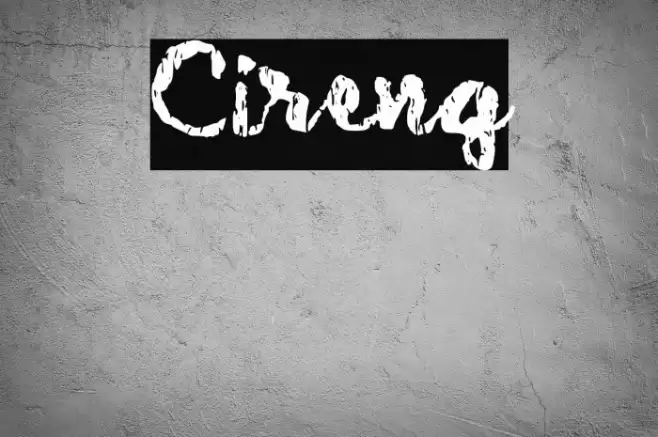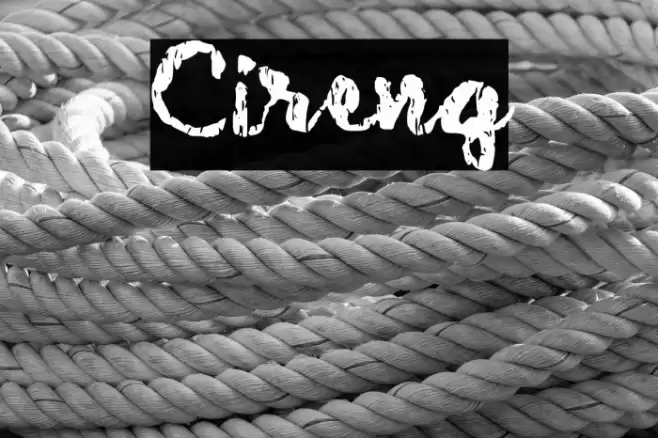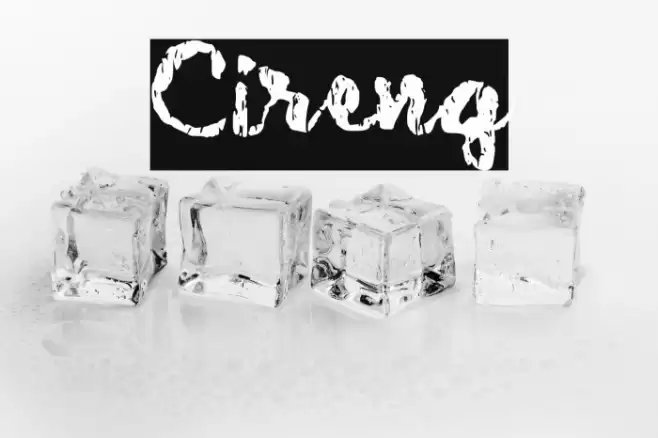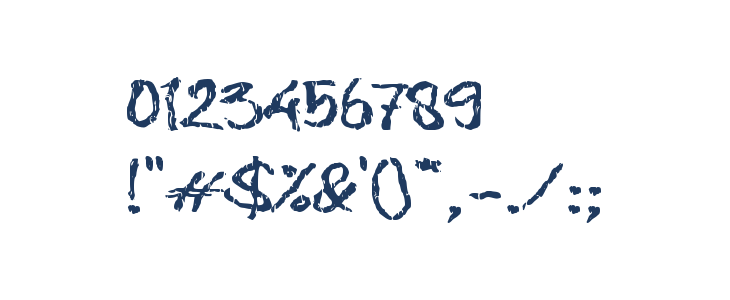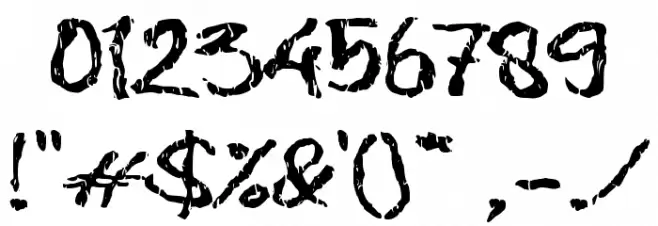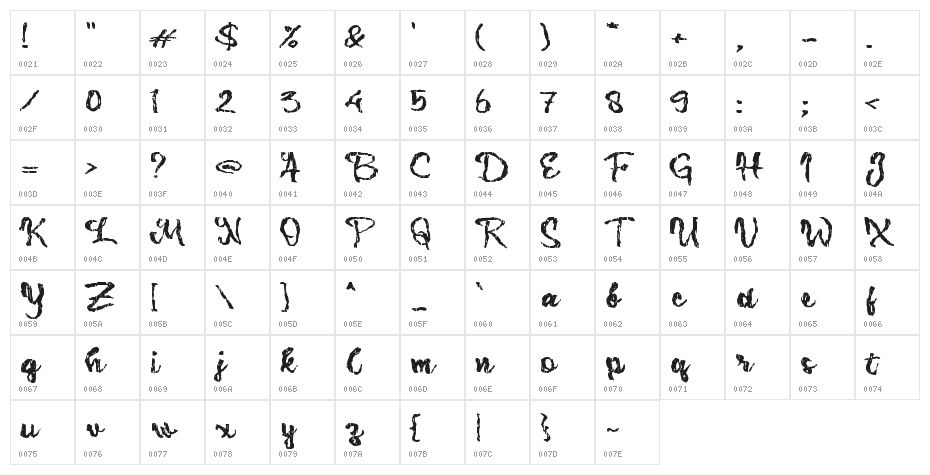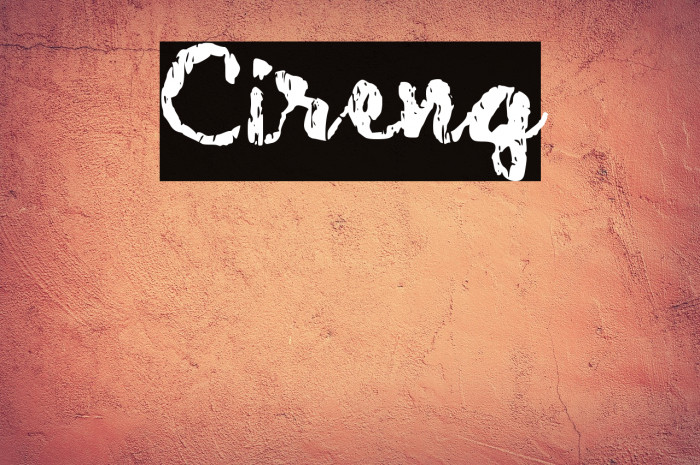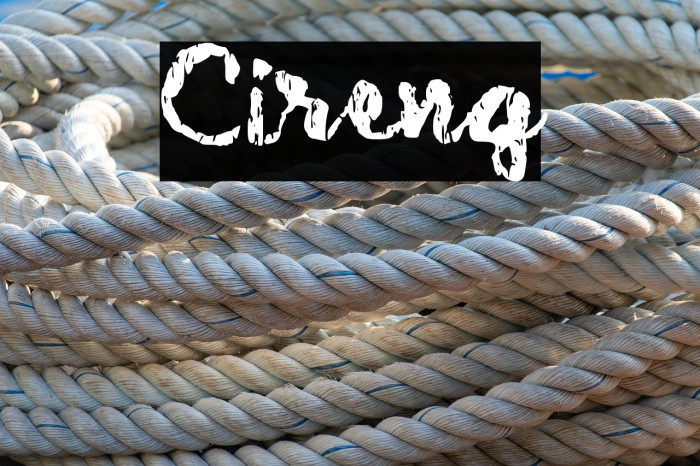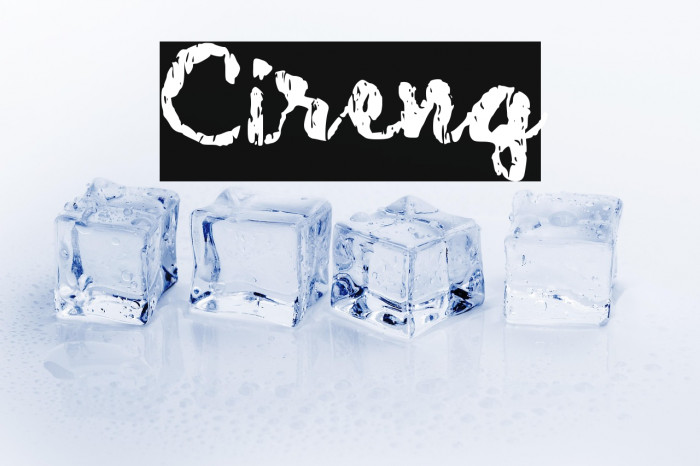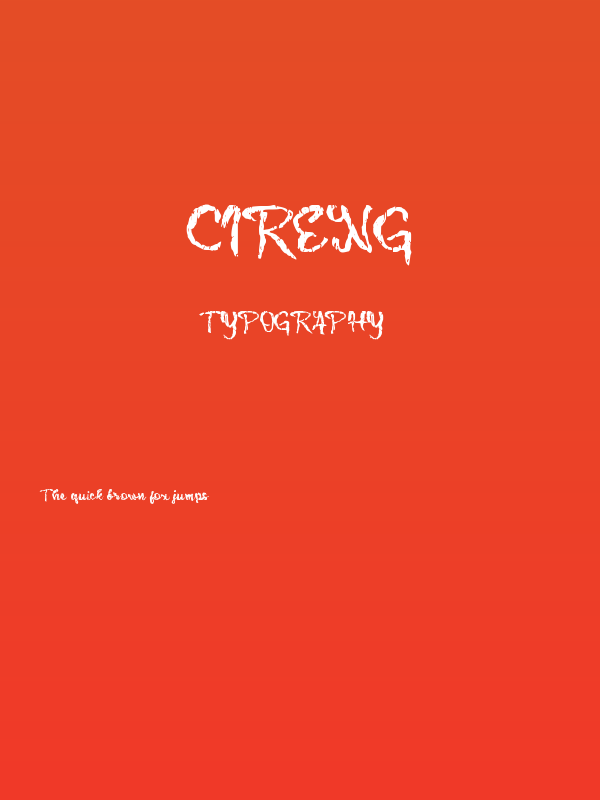
This font features a bold and expressive style with a handwritten appearance. The characters are irregular and have a textured, brush-like effect that gives them a dynamic and artistic look. The uppercase and lowercase letters maintain a consistent flow, while the numbers and special characters complement the overall aesthetic. The font's unique style makes it stand out, with each character appearing as if it has been painted with a brush, adding a sense of movement and energy. The texture within the strokes adds depth and interest, making it suitable for creative and eye-catching designs.
A bold, textured, and expressive handwritten font with a brush-like appearance from Uncategorized fonts.
- Proposed Projects: Ideal for artistic projects, posters, branding, and any design requiring a dynamic and creative touch.
- Use Case: Logos, Posters, Creative Designs